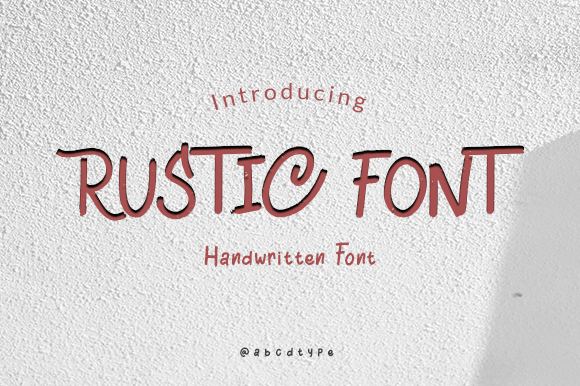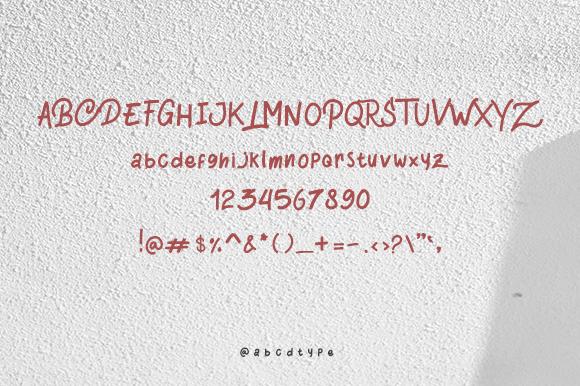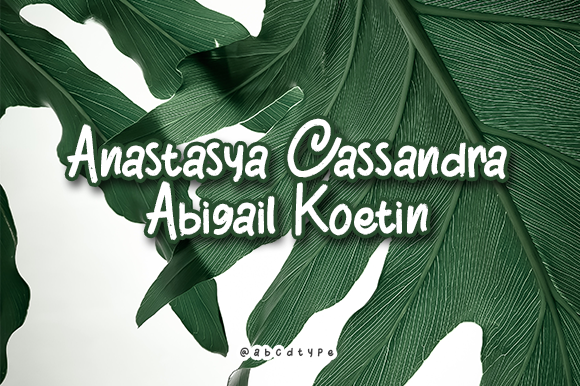
Rustic Font
Rustic is a simple yet very original handwritten font. Defined by neat and elegant characters, this font will fit both formal and informal design ideas.